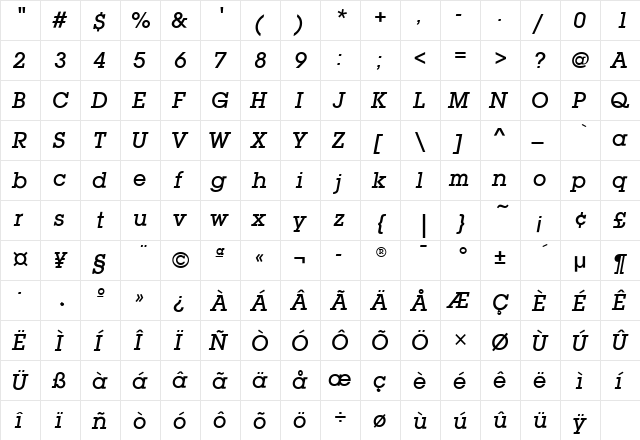
LubalinGraphMdITC Oblique Font Preview
LubalinGraphMdITC Oblique
LubalinGraphMdITC Oblique Font Details
Design Context for LubalinGraphMdITC Typeface
LubalinGraphMdITC offers clean, dependable letterforms without strong stylistic allegiance, making it a practical choice for designers who need flexibility. The slanted form adds forward momentum and visual energy.
Pro Tip: Try LubalinGraphMdITC for annotation and caption copy alongside an upright companion — the contrast in angle creates a dynamic but ordered typographic system.